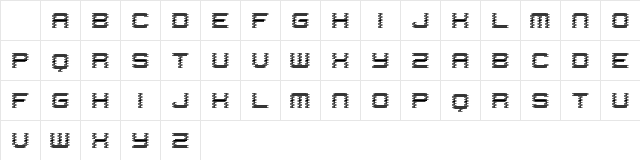
Hijack Regular Free Font
Hijack Regular
Designer: GeronimoFonts
Design Context for Hijack
Hijack is a composed and adaptable typeface that performs quietly and consistently across a wide range of design contexts.